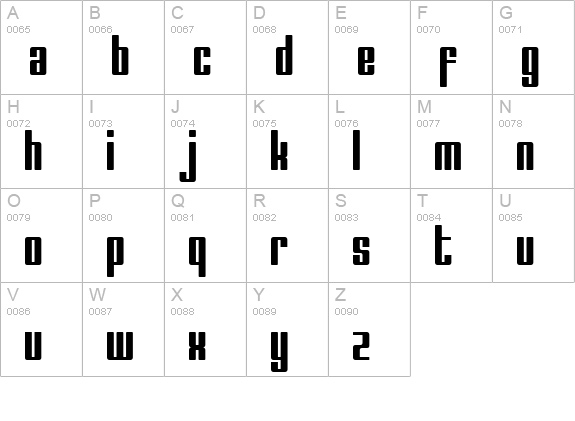
The Sauce Font Details
The Sauce font is a stunning display typeface that is sure to add a flavorful touch to any design project. Its bold and dynamic letterforms exude a sense of confidence and creativity, making it perfect for headings, logos, posters, and more. With its unique blend of modern and vintage aesthetics, The Sauce font strikes the perfect balance between elegance and playfulness. Each character is meticulously crafted with attention to detail, resulting in a typeface that is not only visually striking but also highly legible. One of the best things about The Sauce font is that it is completely free! You read that right - this exceptional typeface can be freely downloaded from FontsMarket.com. This means that you can use it in both personal and commercial projects without worrying about any licensing fees. Whether you're a professional designer looking to add a touch of pizzazz to your latest project or a hobbyist wanting to experiment with new fonts, The Sauce font is a fantastic choice. Its versatility and high-quality design make it suitable for a wide range of applications, from branding and advertising to packaging and social media graphics. So why wait? Get your creative juices flowing and start using The Sauce font today. Download it for free at FontsMarket.com and elevate your designs to a whole new level of greatness.